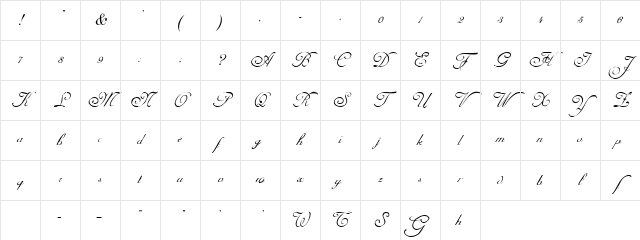
AdineKirnberg Script Free Font
AdineKirnberg Script
Style: Script
Complete AdineKirnberg Script glyph index. Displaying only characters natively supported by AdineKirnberg Script font.
Design Context for AdineKirnberg
AdineKirnberg flows with the natural rhythm of handwritten lettering, making it ideal for designs that call for warmth and personal expression.
Font Pairing: Combine AdineKirnberg with a simple geometric sans for maximum contrast - the tension between flowing curves and clean structure is a classic typographic pairing.
Pro Tip: Use AdineKirnberg for short runs of text - names, titles, or taglines. Extended body copy in script faces tires the eye quickly.